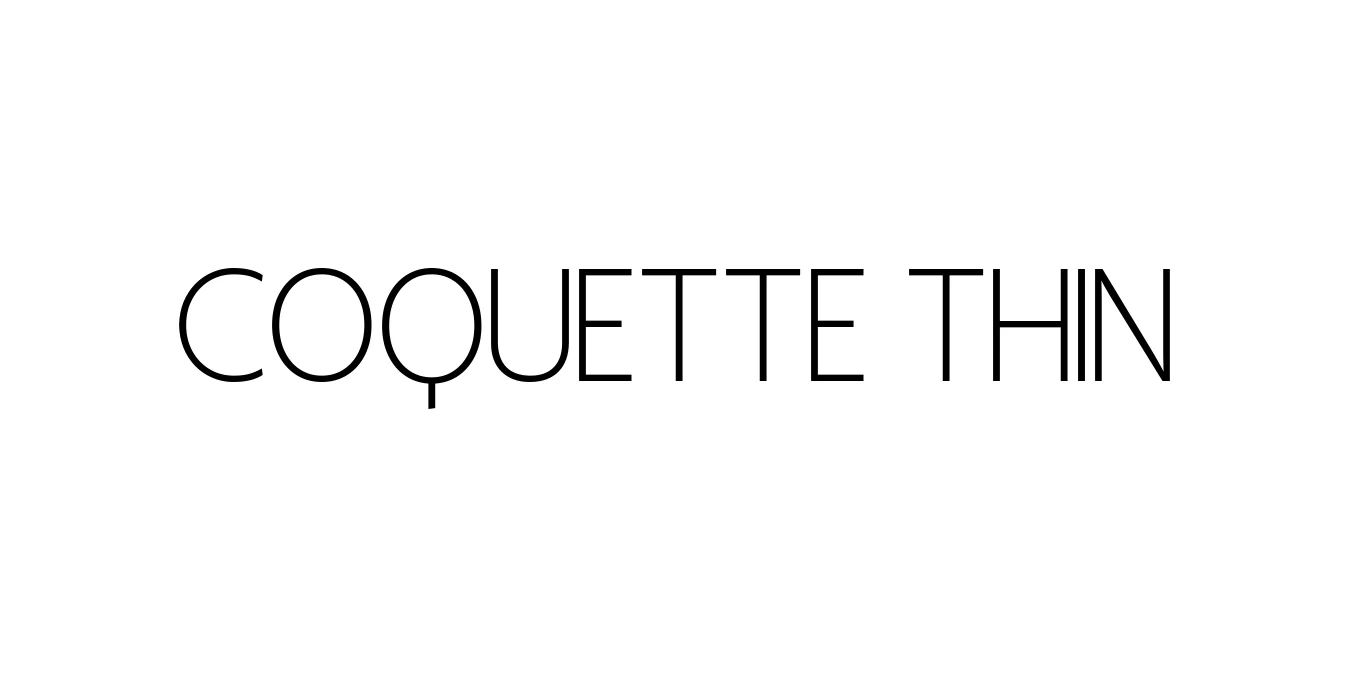
Coquette Thin
Designed by Mark Simonson
Coquette Thin is a refined and elegant typeface designed by the renowned typographer Mark Simonson. Introduced in 2001, this font serves as a unique stylistic hybrid, blending the structured geometry of 1930s French scripts with the casual, upright vernacular of mid-century American commercial lettering. The Thin weight specifically highlights the delicate, wire-like precision of its curves, providing a sophisticated and airy feel that distinguishes it from more traditional, heavy-handed scripts.
Characterized by its unconnected characters and rhythmic flow, Coquette Thin offers a whimsical yet professional aesthetic. It is highly valued by designers for its ability to convey a sense of vintage nostalgia while maintaining a clean, modern edge. Its balanced proportions and distinctive letterforms make it an excellent choice for high-end display work where legibility and personality must coexist seamlessly.
Coquette Thin Best Uses
Perfect for creating a chic, high-end retro brand identity.
Ideal for luxury boutique products and cosmetic labels.
Works beautifully for magazine headlines and elegant pull-quotes.
Great for sophisticated overlays and feminine lifestyle content.